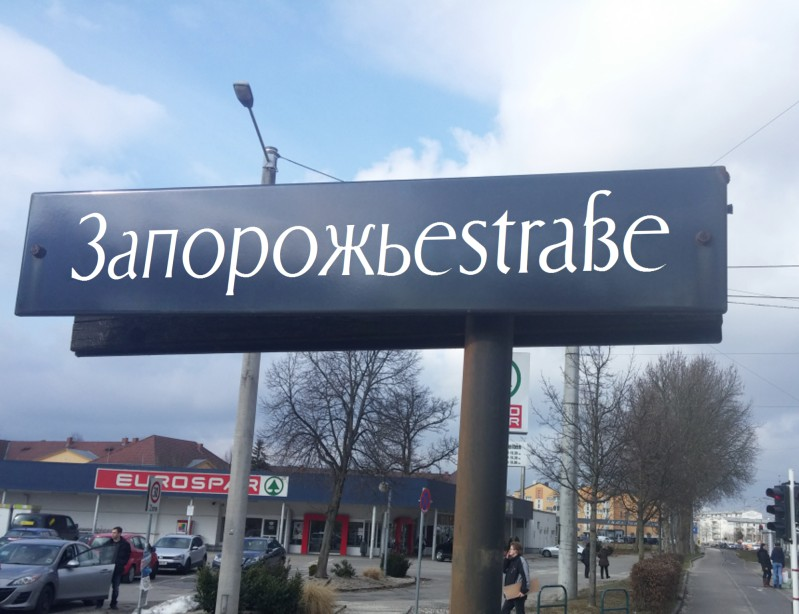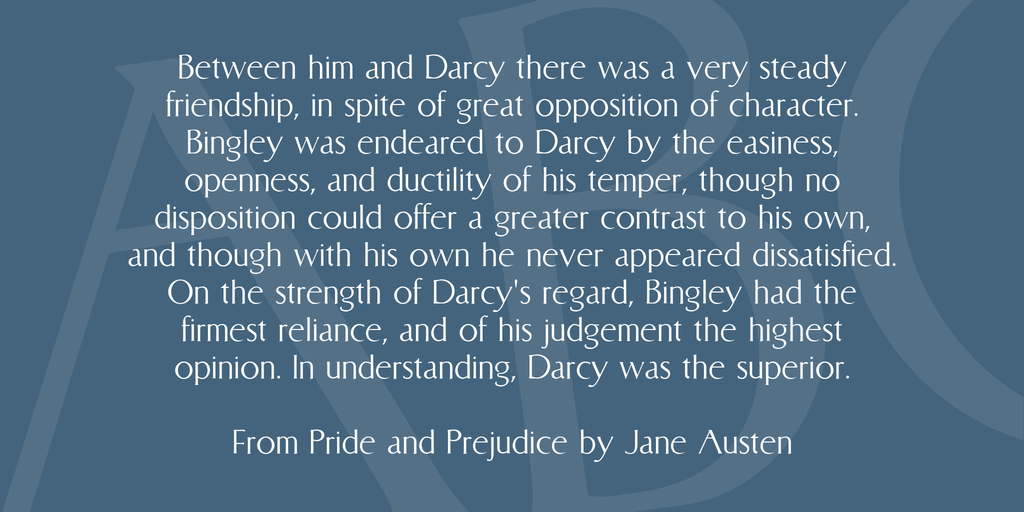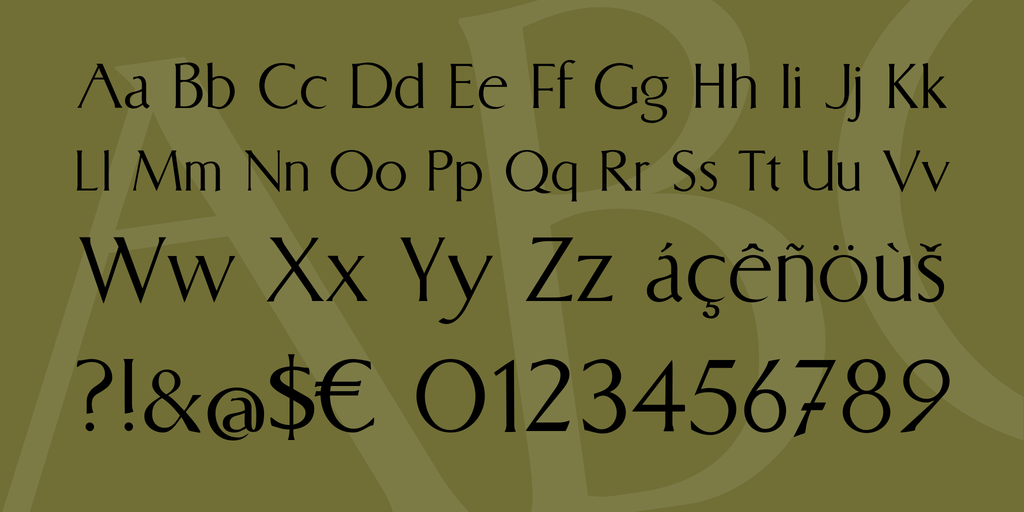
CAT Linz Font
This font was designed after old street signs in Linz, Austria.
The original draft from around the 1950’s very likely stems from the master class for type- and book design at the Linz Art School, later art college and today University of Art and Design Linz, with it’s former director prof. Friedrich Neugebauer. It could just as well be the original was designed at the Linz vocational school for design, later HTL for applioed art under the direction of professor Schreiber. The exact type designer is unfortunately unknown.
This font was created from suggestion in the typografie.info forum.
There are over 1800 characters available in total. The font now includes all Latin Unicode blocks, as well as Cyrillic, Greek (incl. Polytones Greek) and ligatures according to UNZ1 recommendation. Also IPA phonetics characters are available on the intended Unicode places. Further, currency symbols are included beyond the usual scope, like the Turkish lira and Russian ruble symbol.